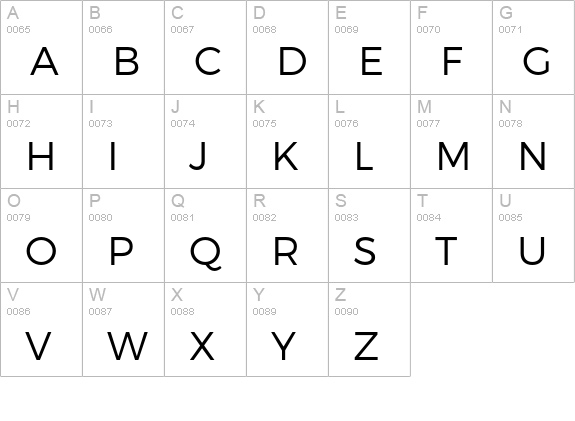
Trueno Light is a refined, elegant variant in the Trueno typeface family \xE2\x80\x94 well suited to elegant body text, refined sub-headings, and luxury branding.
Trueno Light font is a visually captivating and versatile typeface that will add a touch of elegance and sophistication to any design project. With its sleek and modern appearance, this font is perfect for creating stunning headlines, logos, posters, and more. The Trueno Light font features a unique combination of sharp edges and smooth curves, giving it a distinct and contemporary look. Its clean and minimalist design allows for easy readability, making it suitable for both print and digital applications. One of the best things about Trueno Light font is that it is free! Yes, you read that right. This incredible font is freely available to download at FontsMarket.com. Whether you're a professional designer looking to enhance your portfolio or a casual user in need of a stylish font for personal projects, Trueno Light font is the perfect choice. Not only does Trueno Light font offer exceptional aesthetics, but it also provides a wide range of glyphs and special characters, ensuring that you have all the tools you need to bring your creative vision to life. It supports multiple languages, making it accessible and versatile for a global audience. So why wait? Download Trueno Light font today and experience the beauty and flexibility it has to offer. Whether you're designing a website, creating a flyer, or crafting a brand identity, this font will undoubtedly elevate your work to new heights. And the best part? It won't cost you a dime. Head over to FontsMarket.com and get your hands on Trueno Light font now!